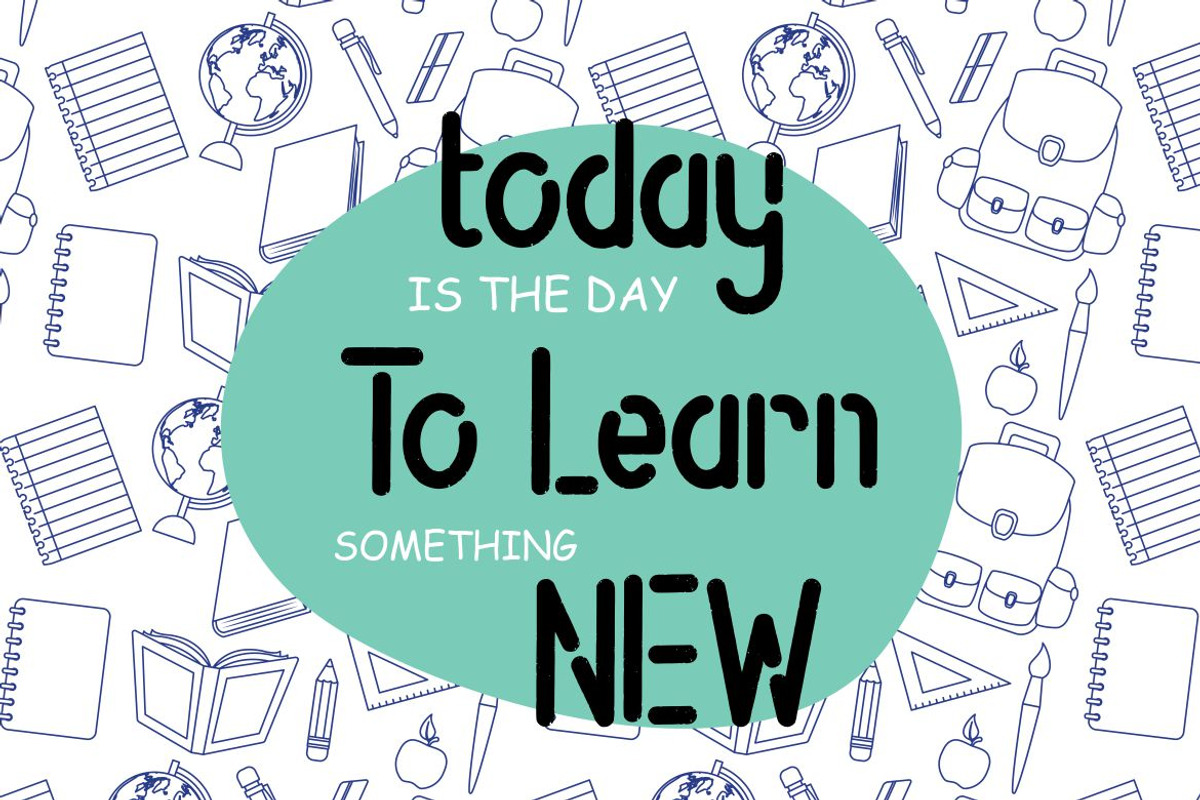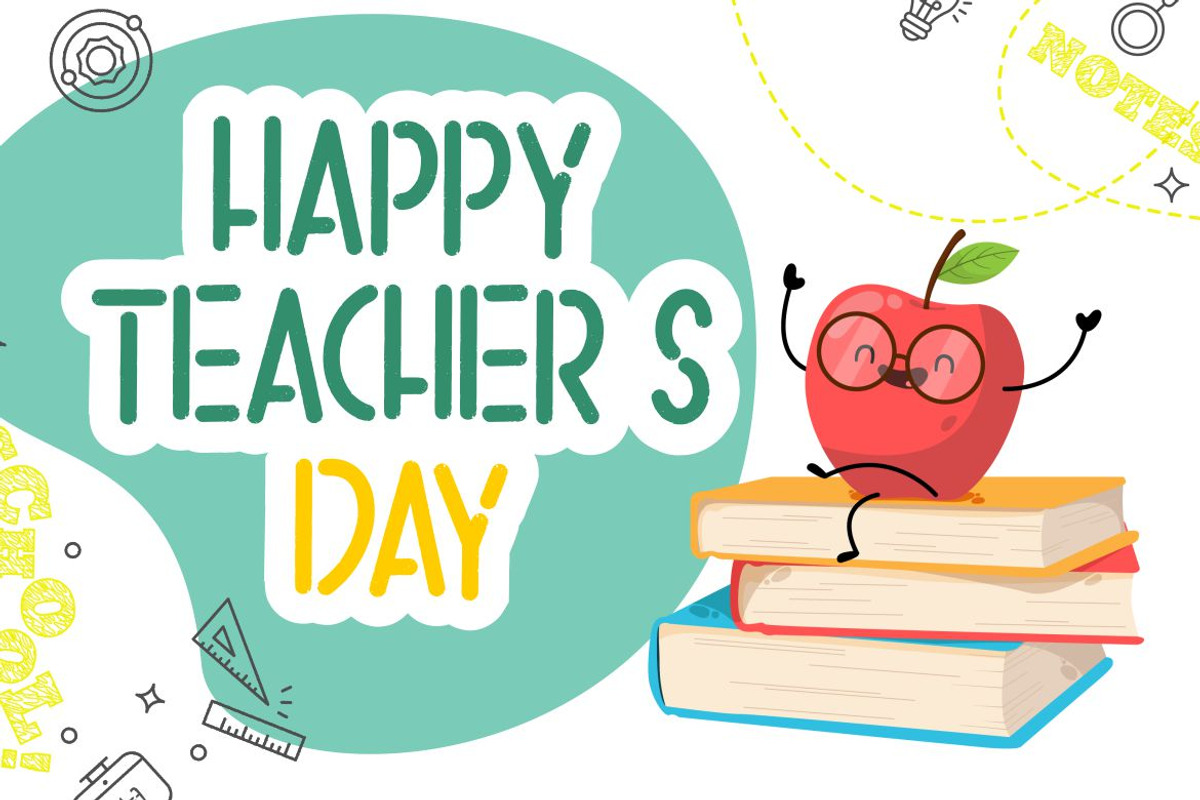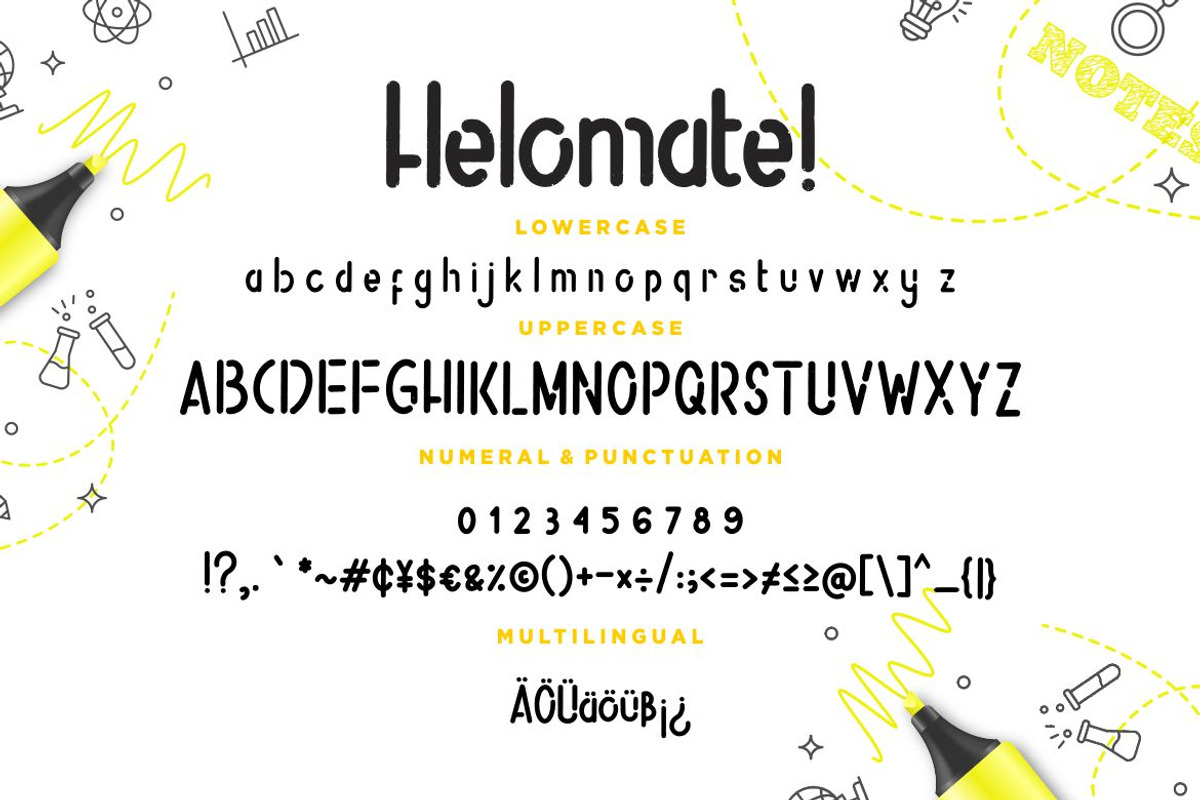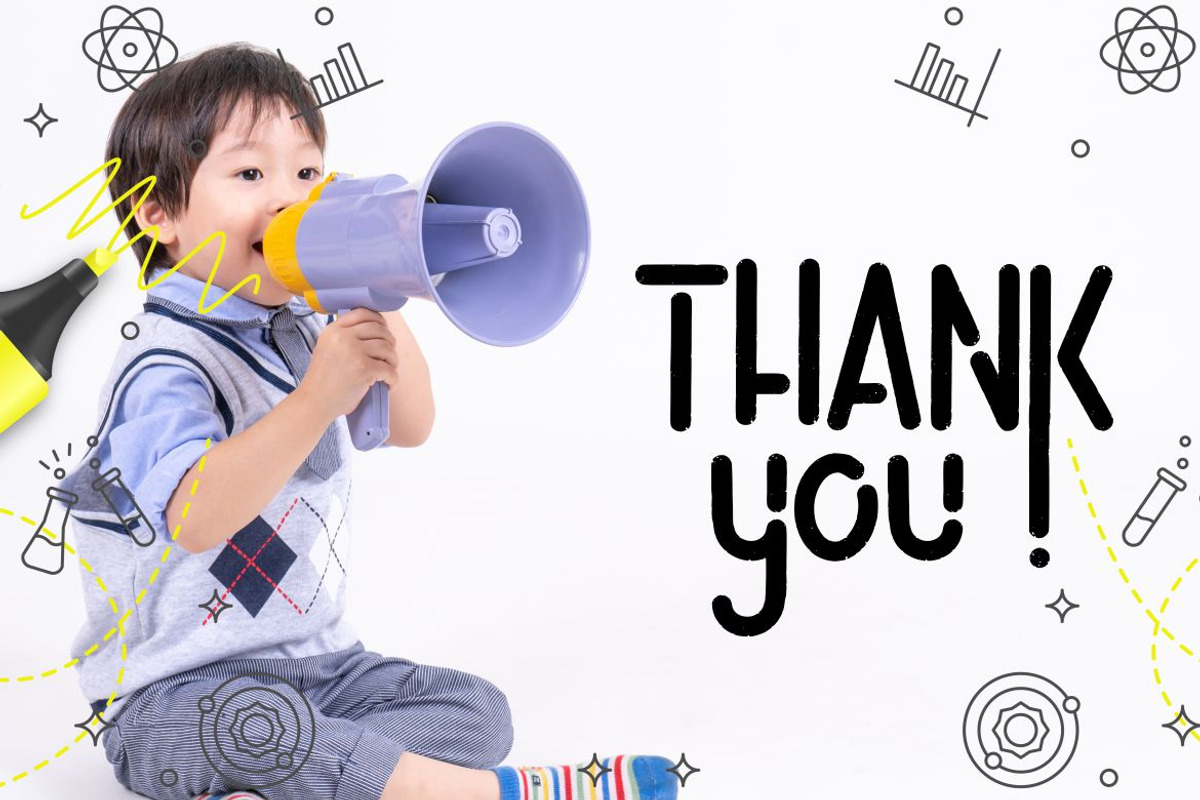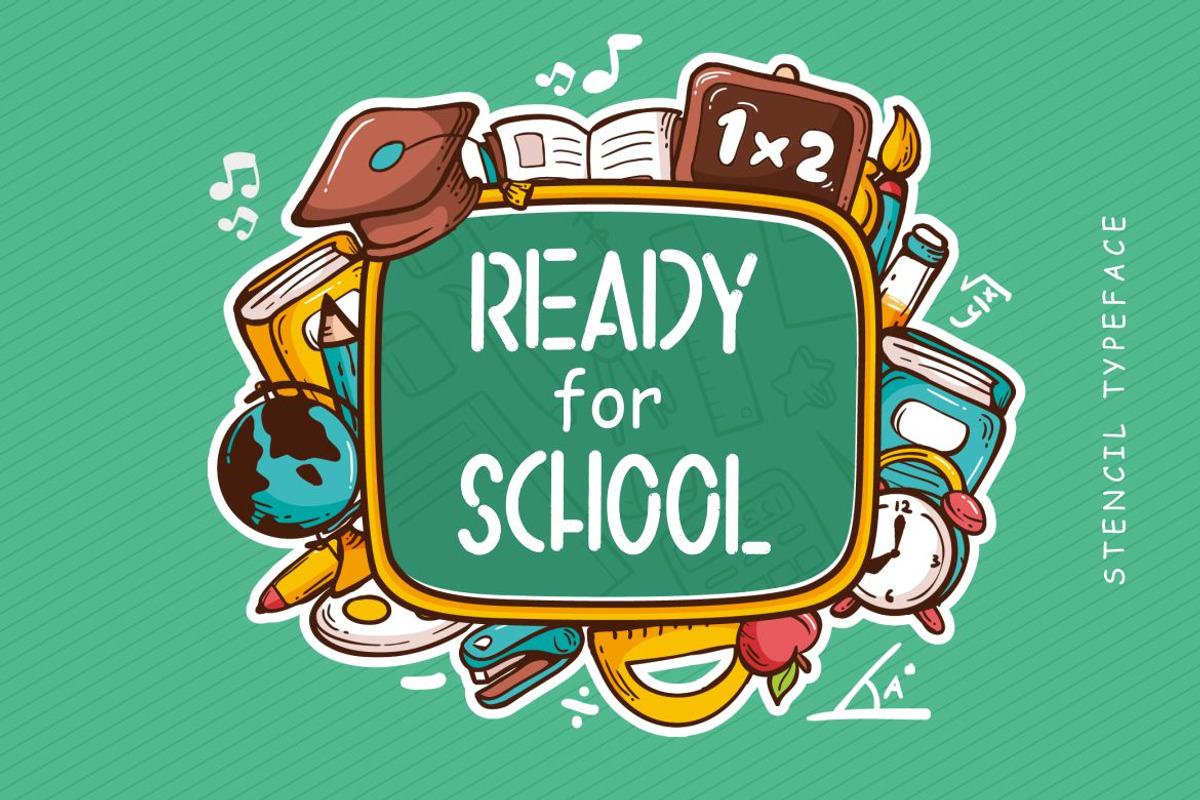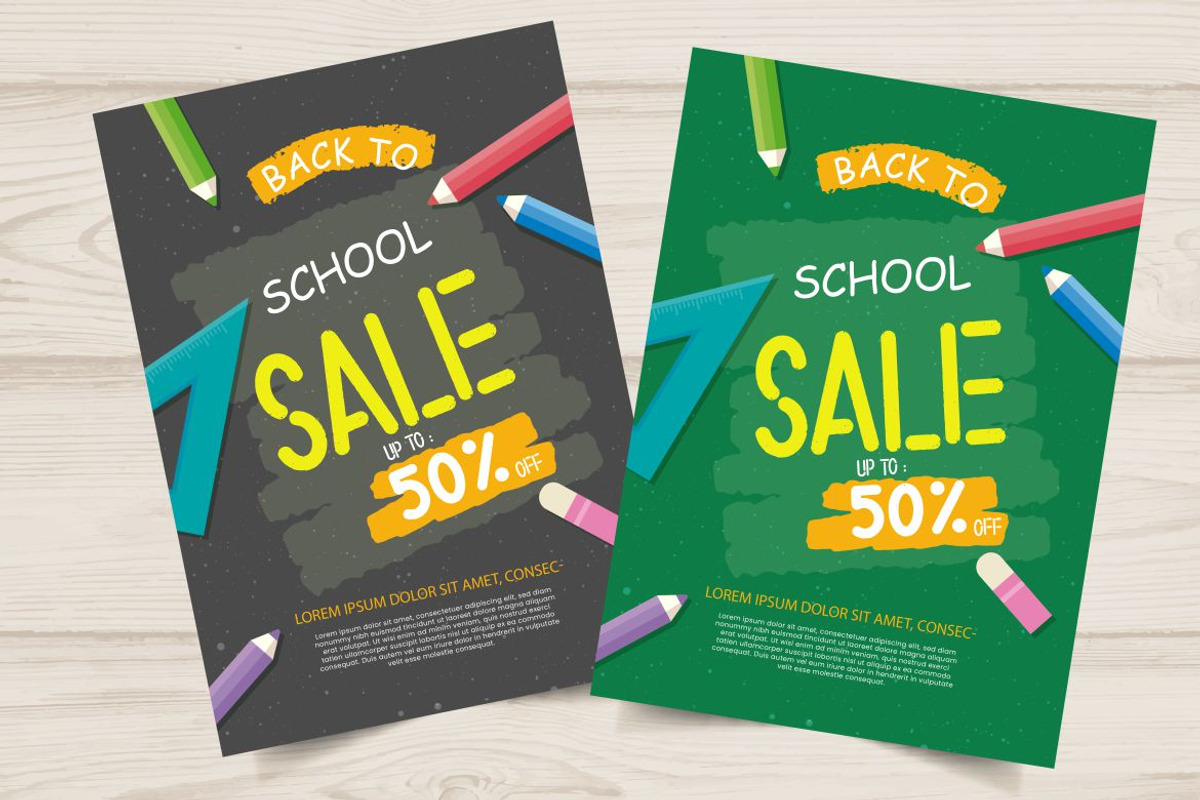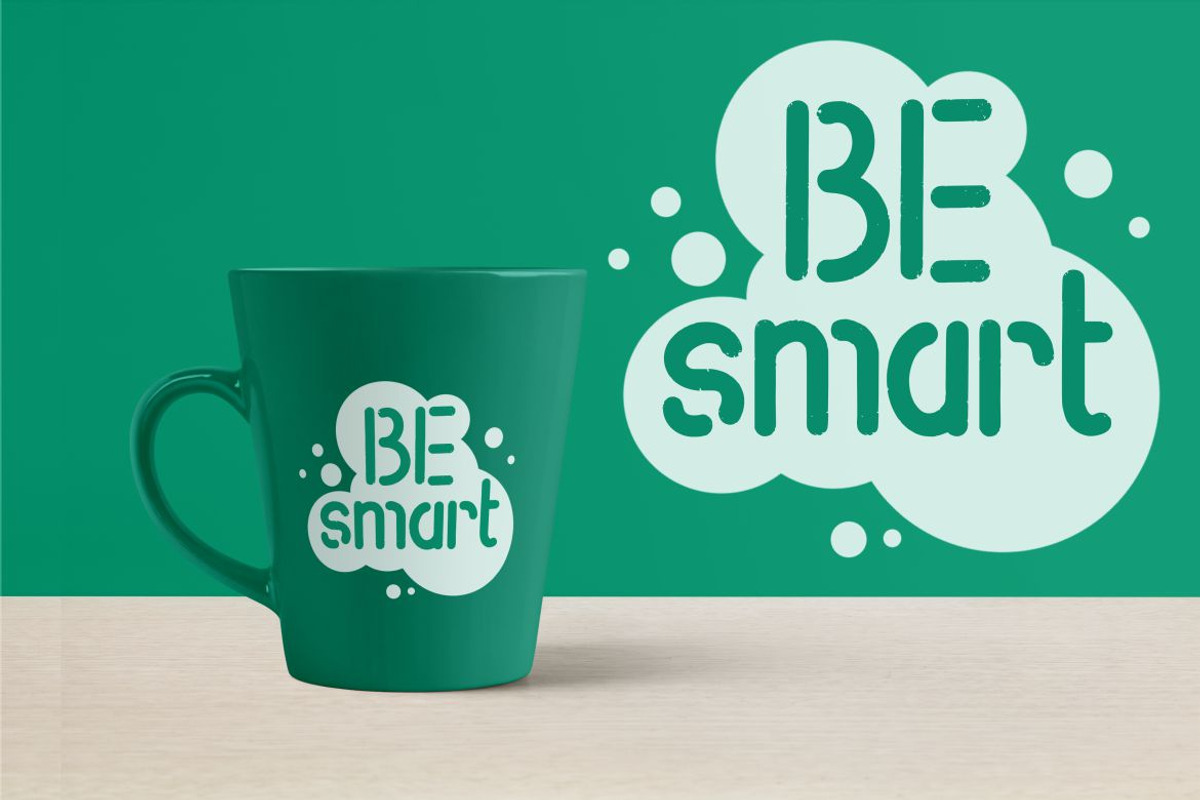
Helomate Stencil Advertisement Font
Helomate is a stencil font with personal touch of natural movement.
Helomate is perfect for branding projects, logo, wedding designs, social media posts, advertisements, product packaging, product designs, label, photography, watermark, invitation, stationery and any projects that need handwriting taste.
Helomate Stencil Advertisement Font by Creatype Studio fits naturally into Branding, posters, packaging, typography.